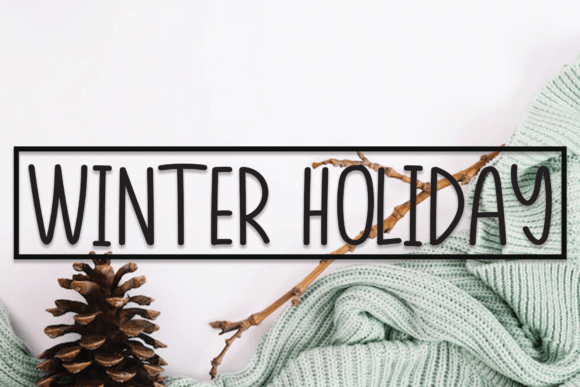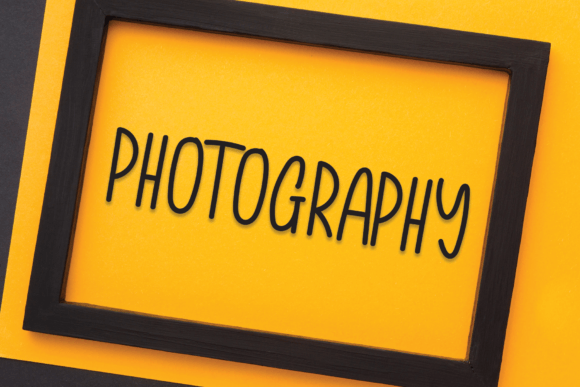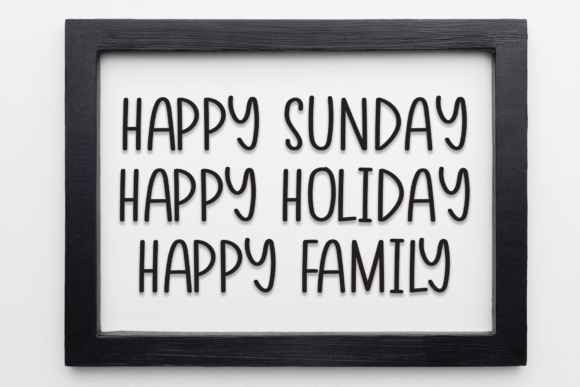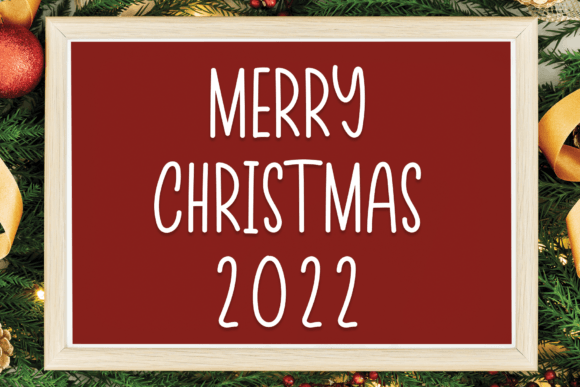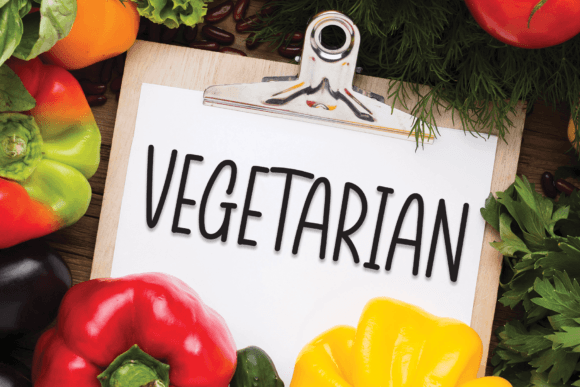
Winter Holiday Font
The Winter Holiday Font Download is a fun and friendly handwritten typeface created to add warmth, joy, and charm to your projects. With its casual strokes and approachable flow, this font is perfect for both personal and professional design needs. Whether you are working on DIY crafts, digital designs, or festive greeting cards, Winter Holiday brings a unique handwritten flair that enhances every creative effort.
A Handwritten Script with Style
Winter Holiday feels natural and inviting, with each letter carrying the smooth flow of authentic handwriting. Its playful strokes add personality, while its balanced design ensures readability. The Winter Holiday Font Download captures the essence of casual lettering, making it suitable for both fun and elegant design projects.
Perfect for Crafts and DIY Projects
Crafters love fonts that feel personal yet polished, and Winter Holiday delivers exactly that. It’s perfect for scrapbooking, embroidery, wall art, or handmade gift tags. The Winter Holiday Font Download gives every DIY creation a stylish and heartfelt look, helping you add personality to your projects with ease.
Great for Greeting Cards and Invitations
When it comes to greeting cards and invitations, the right font sets the tone. Winter Holiday is an excellent choice for thank you notes, birthday cards, wedding invitations, or festive holiday greetings. The Winter Holiday Font Download transforms everyday messages into meaningful expressions that feel personal and memorable.
Ideal for Digital Design and Social Media
In today’s digital-first world, visuals must be engaging while staying legible. Winter Holiday excels in this area. Whether you are designing Instagram posts, Pinterest graphics, blog headers, or YouTube thumbnails, the Winter Holiday Font Download ensures your content looks unique and approachable. It works seamlessly with Canva, Photoshop, Illustrator, and other design tools, making it flexible for creators at all levels.
A Friendly Typeface for Presentations
Presentations should look professional but not boring. Winter Holiday strikes the right balance by keeping slides engaging while ensuring text is easy to follow. Teachers, students, and professionals can all benefit from the Winter Holiday Font Download when creating materials that need both clarity and character.
Versatile Across Different Projects
One of the strongest qualities of Winter Holiday is its versatility. It adapts well to multiple design purposes, from logos and packaging to crafts and educational resources. The Winter Holiday Font Download is a dependable typeface that works across both digital and print platforms, making it a valuable addition to your font collection.
Why Designers Love Winter Holiday
Designers often choose Winter Holiday because it combines style with usability. Many handwritten fonts look appealing but can be hard to read at smaller sizes. The Winter Holiday Font Download avoids this issue, keeping its charm while remaining clear and functional. This balance makes it a go-to font for both personal and professional design work.